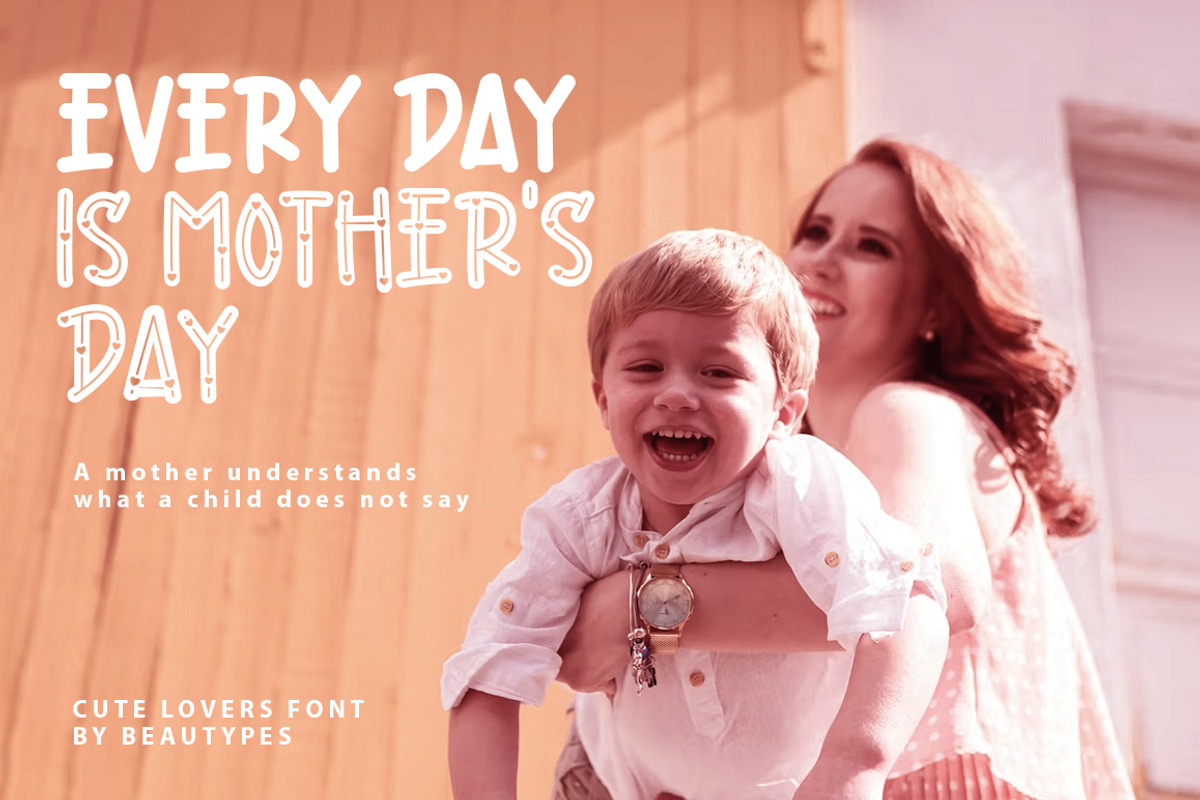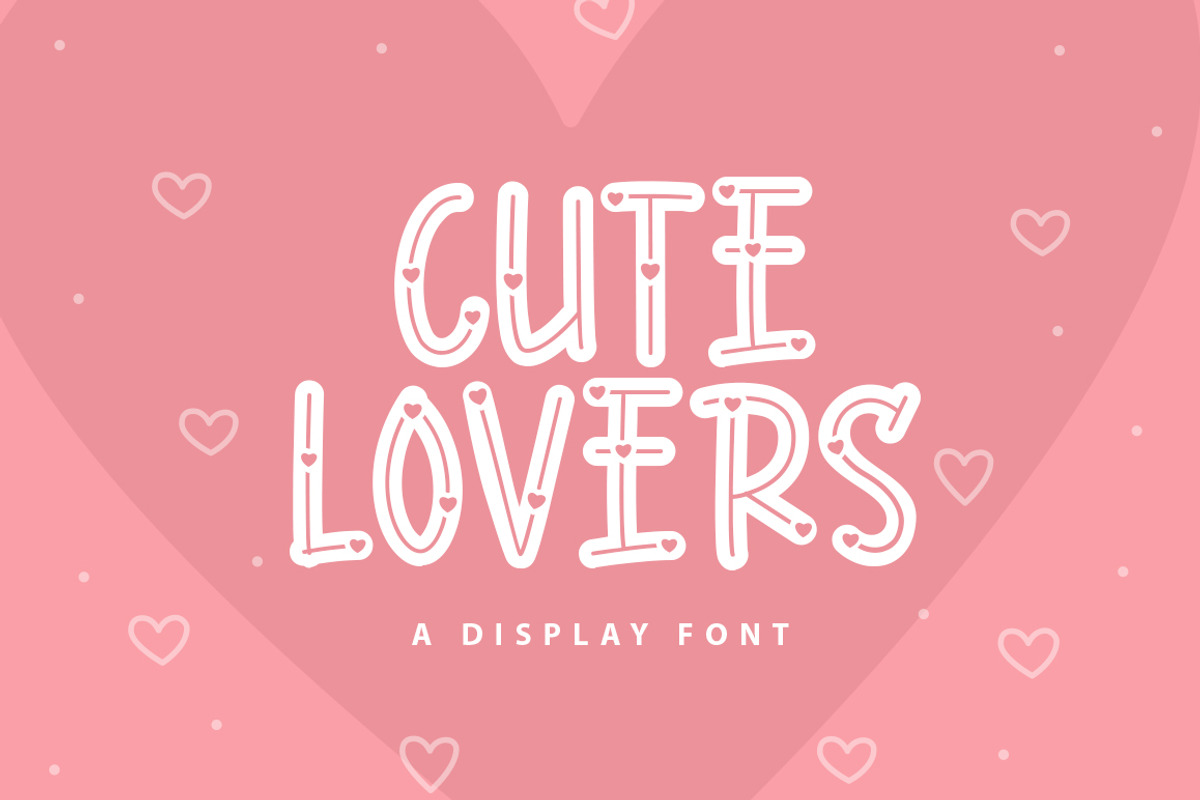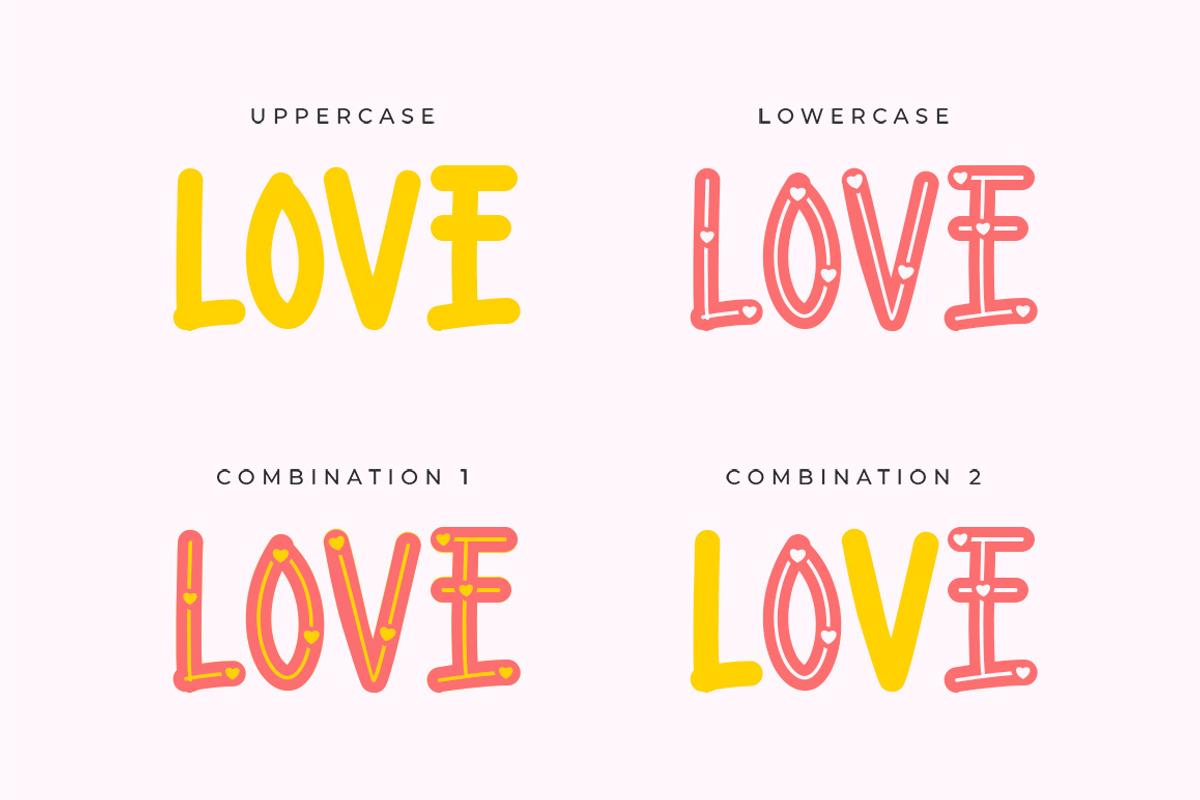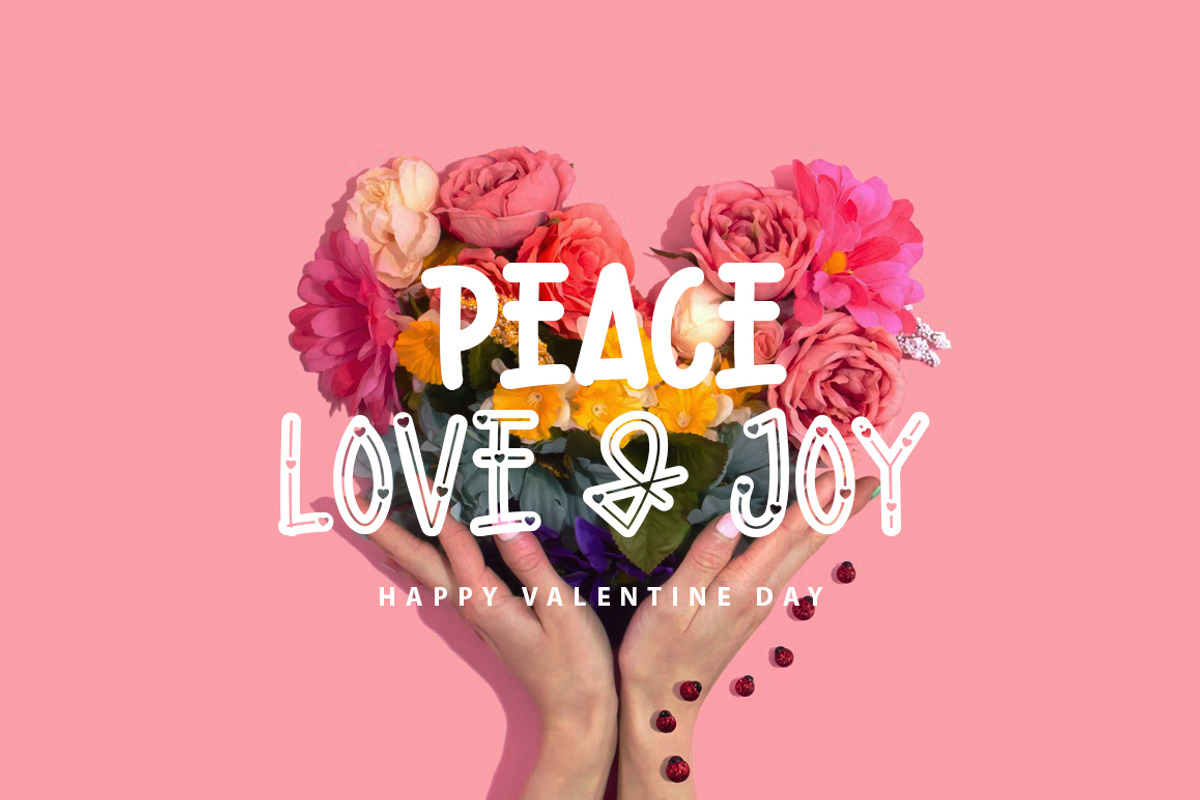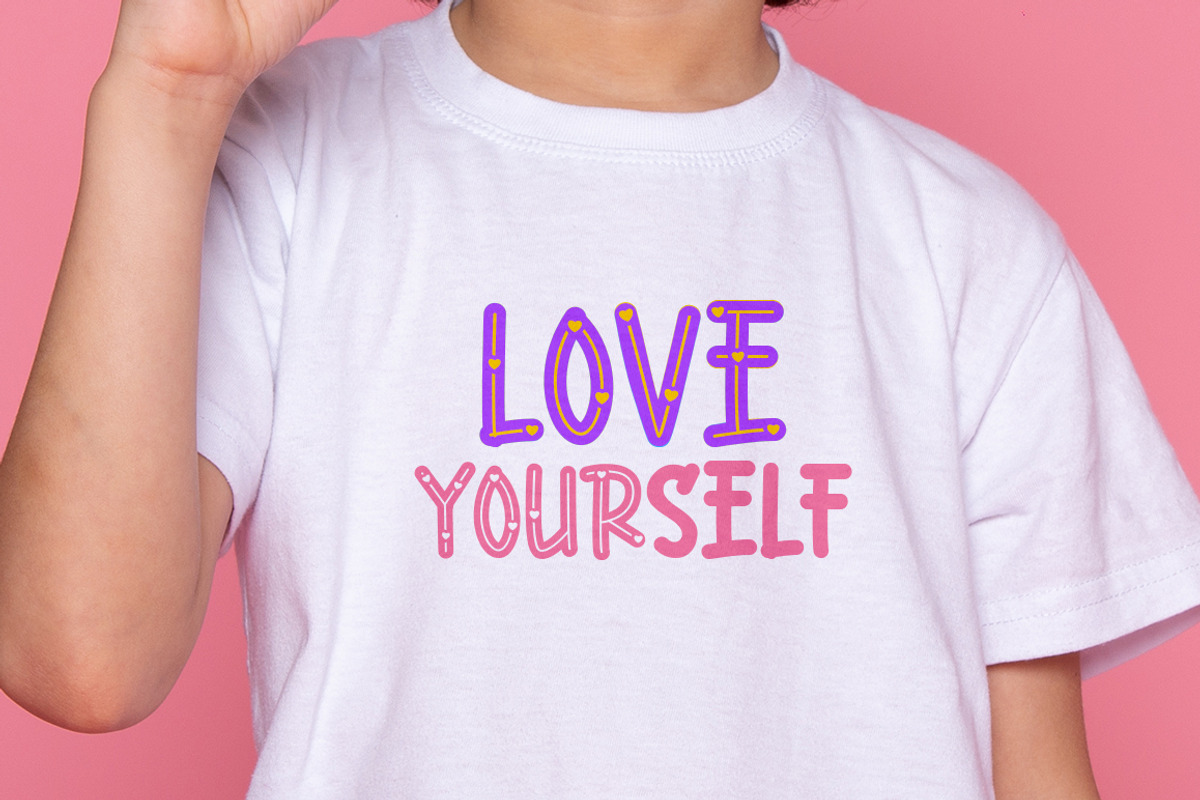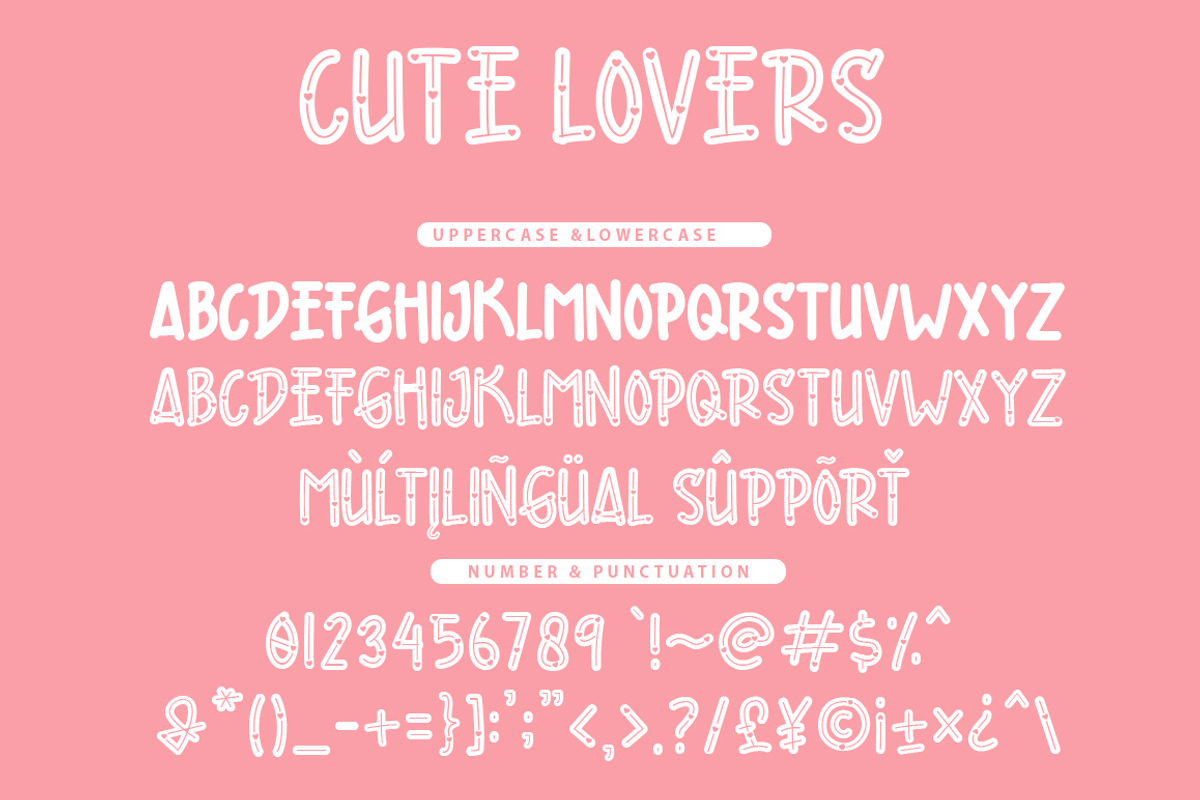
Cute Lovers - a display font
Cute Lovers Is a display Handwritten Font with Love Decoration
You can mix and match uppercase and lowercase letters, to make the mix look more beautiful
This fonts is ideal for crafting, branding and decorate your any project. This fonts are perfect for wedding invitation or your blog. Also with their help, you can create a logo or beautiful frame for your home. Or just use for your business, book covers, stationery, marketing, magazines and more.